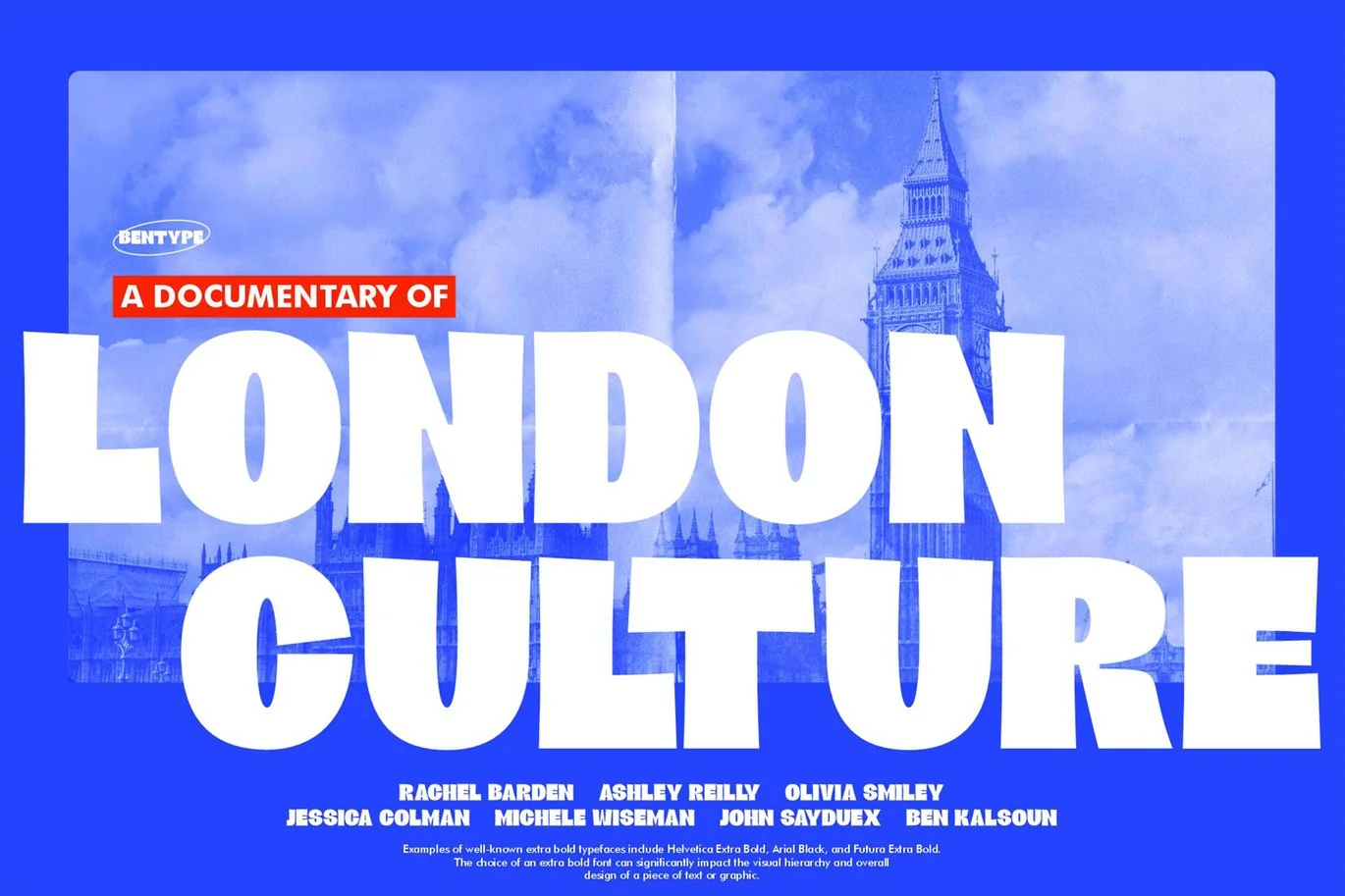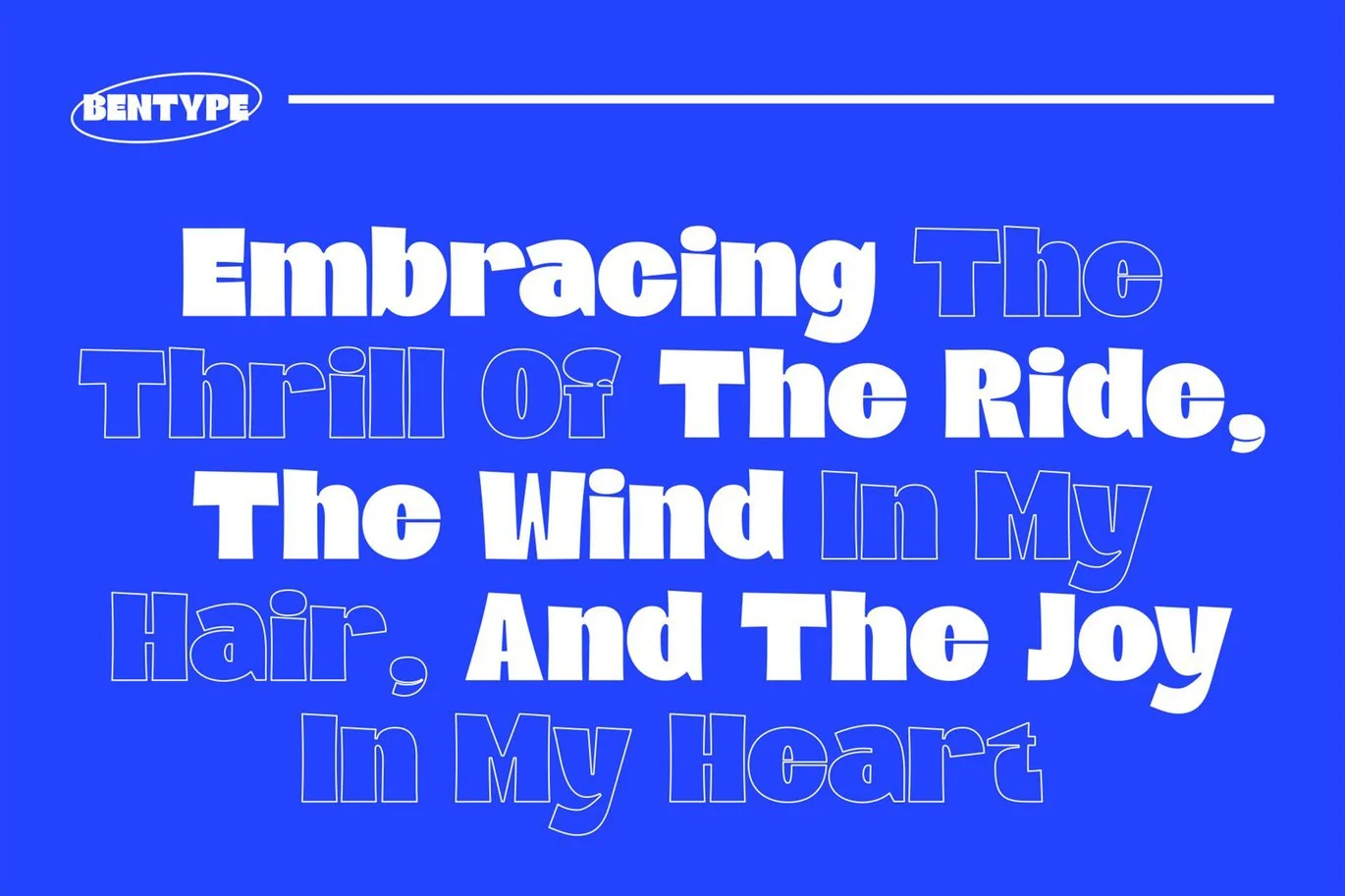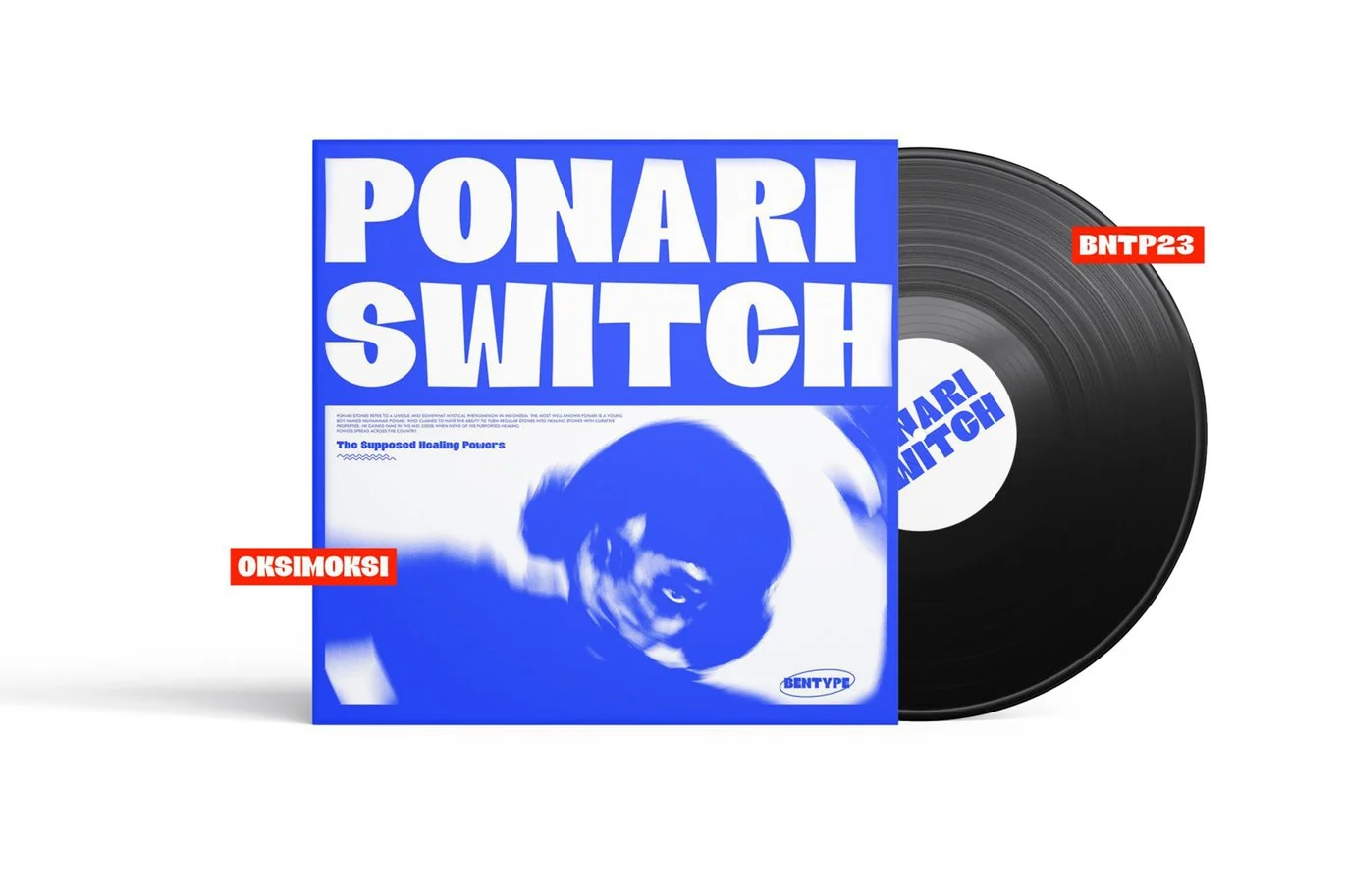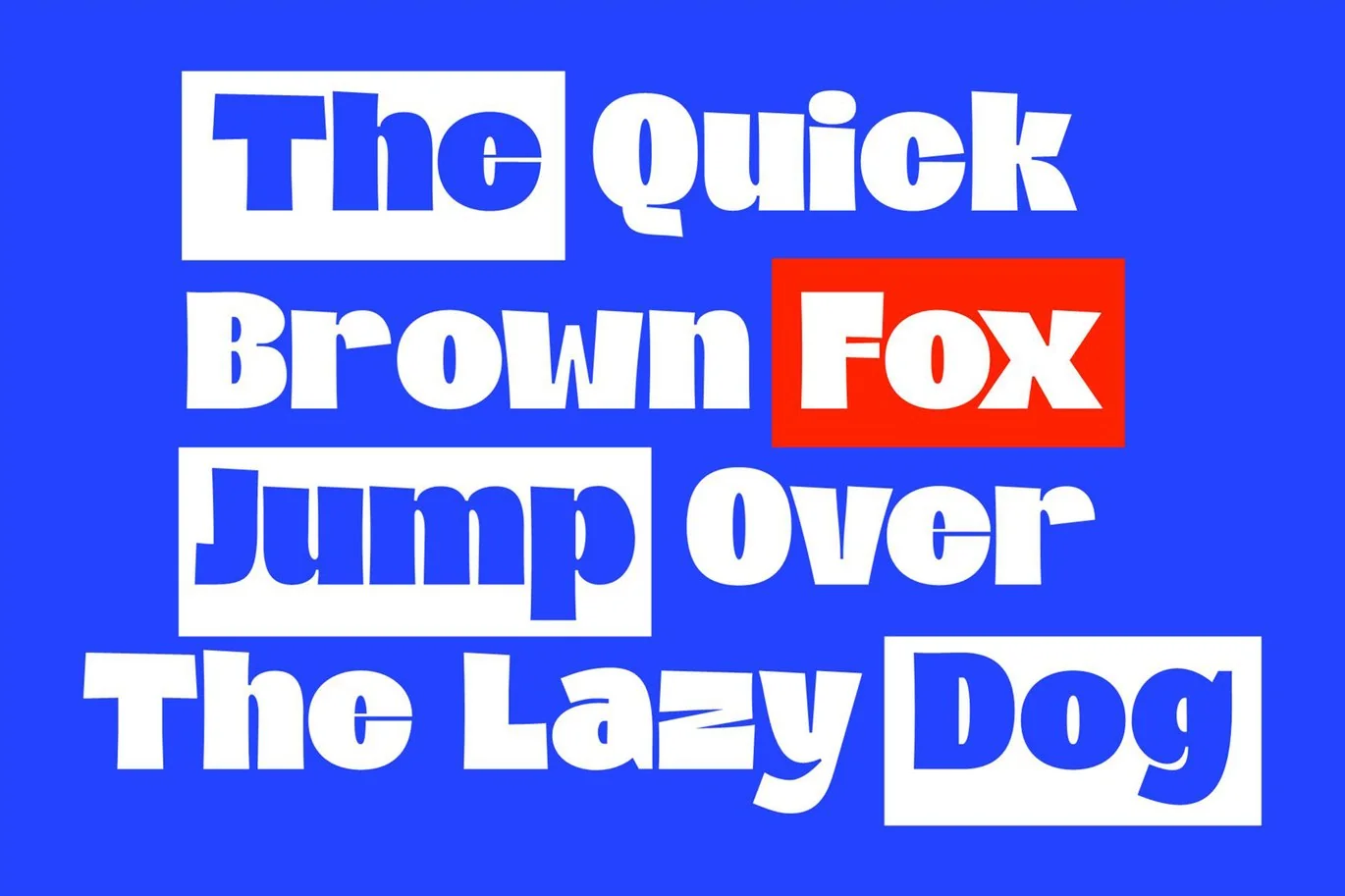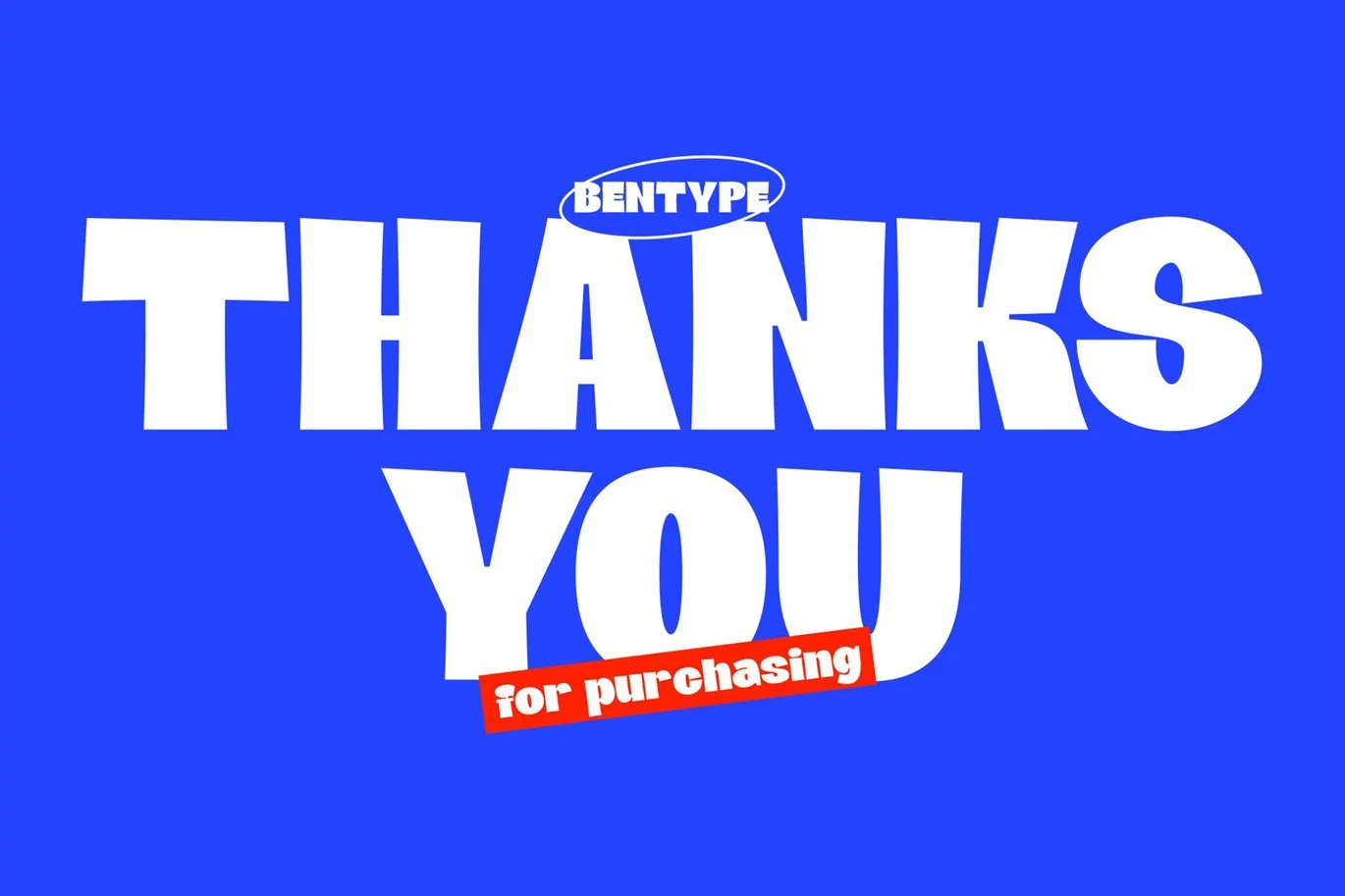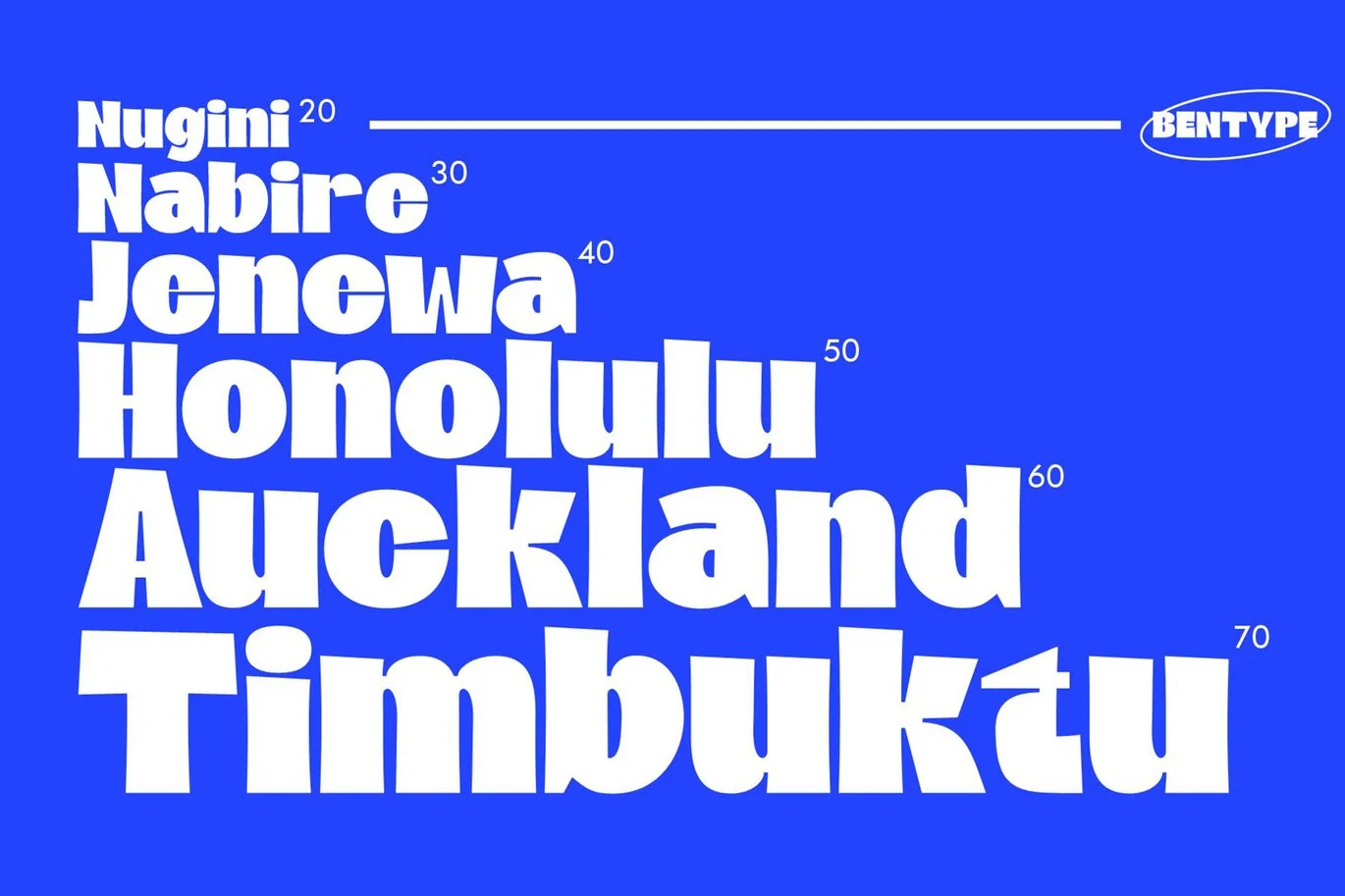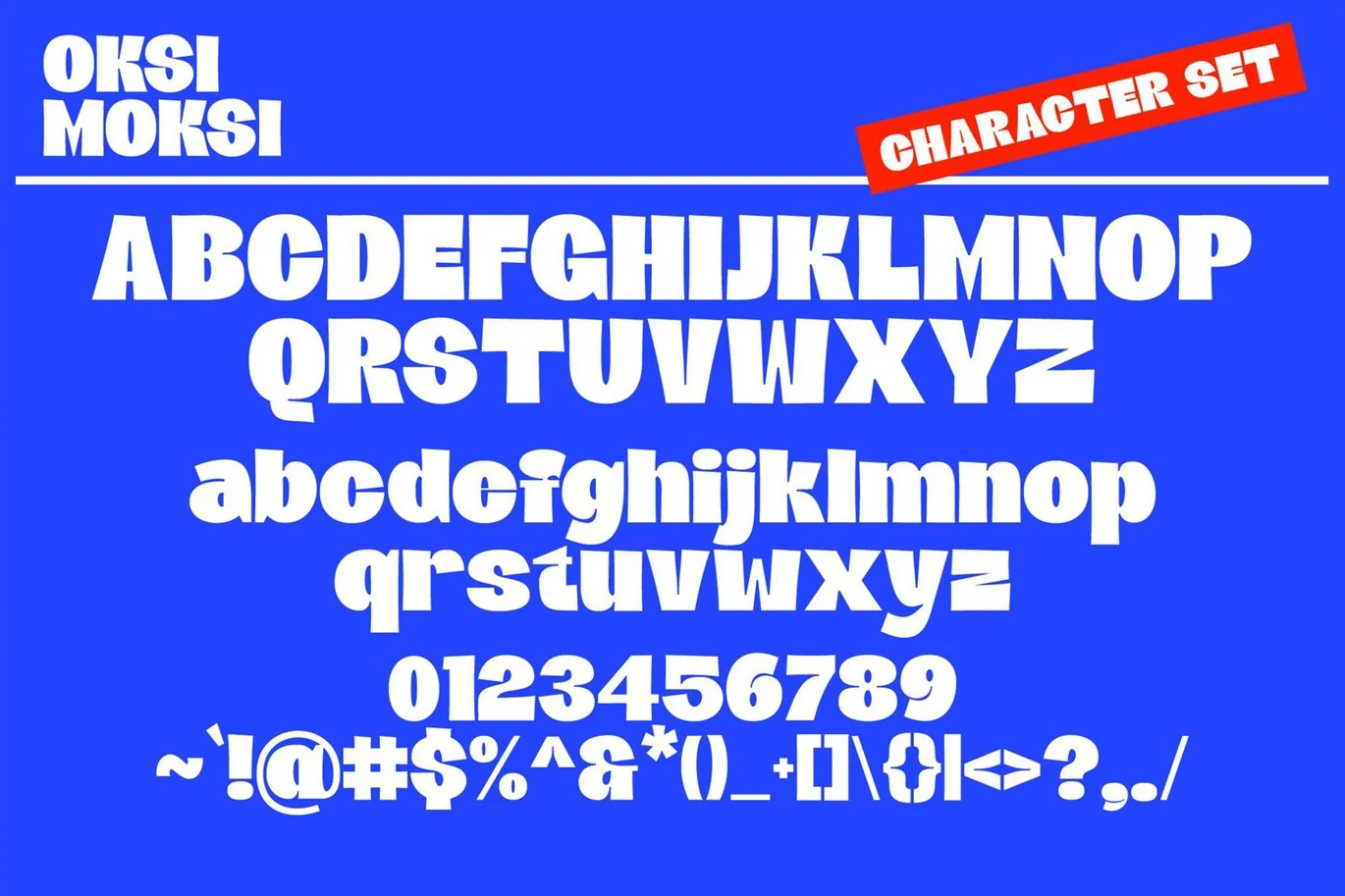
Oksi Moksi – Extra Bold Font
OKSI MOKSI is Extra bold font style or font weight that is characterized by exceptionally thick and heavy letterforms. It is a bolder and more prominent version of a particular typeface compared to its regular, bold, or semi-bold counterparts. Extra bold fonts are often used for emphasis, headlines, or to grab the reader’s attention due to their substantial and heavy appearance. Suitable for use as a headline, poster design, tshirt, event design, etc.